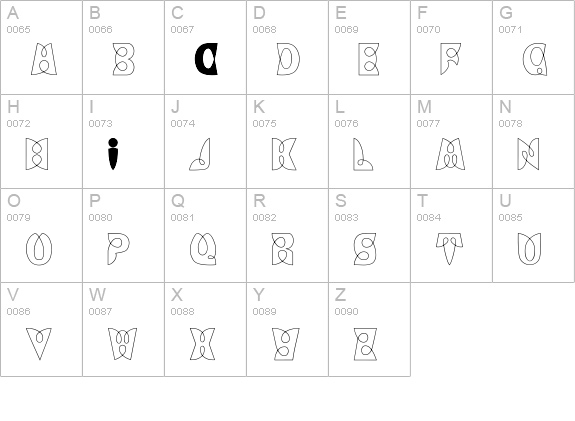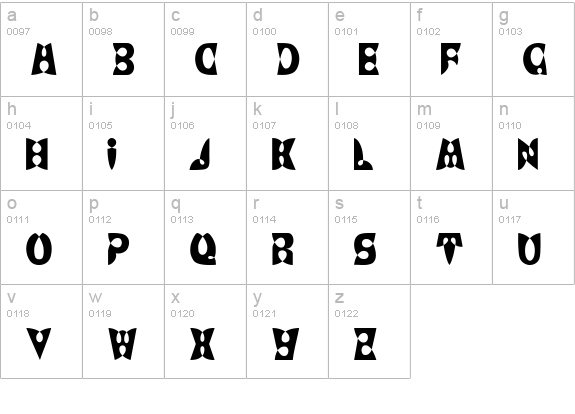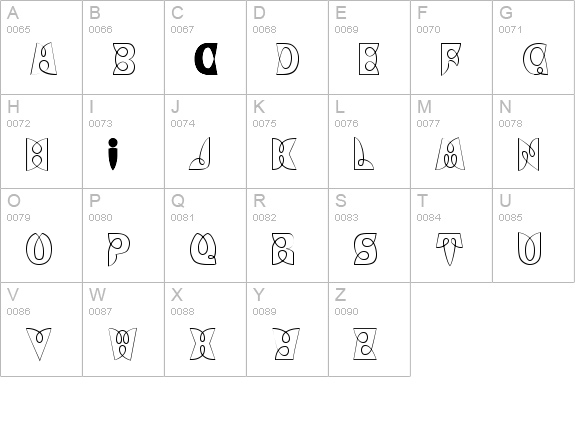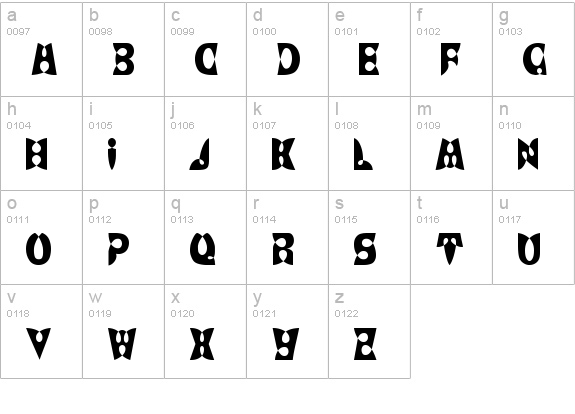
LoopDeLoop Font Details
LoopDeLoop font is a whimsical and playful typeface that brings a sense of fun and creativity to any design project. With its looping and flowing letterforms, this font adds a touch of charm and uniqueness to your text. Whether you're working on a poster, logo, or any other creative endeavor, LoopDeLoop font is sure to make your work stand out. And the best part? LoopDeLoop font is completely free to download at FontsMarket.com! So you can add this delightful font to your collection without breaking the bank. Don't miss out on the opportunity to enhance your designs with the free-spirited energy of LoopDeLoop font. Download it today and let your creativity loop and loop!